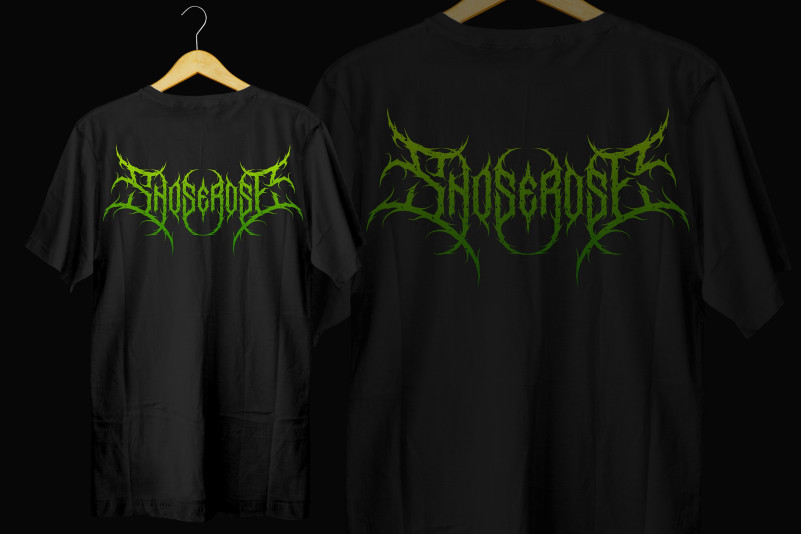
Snoserose Font
Snoserose Display Font is a carefully crafted font, which features a very heavy black metal feel. Snoserose suitable for metal band logos, merchandise, clothing, apparel, or anything that needs a black metal feel.